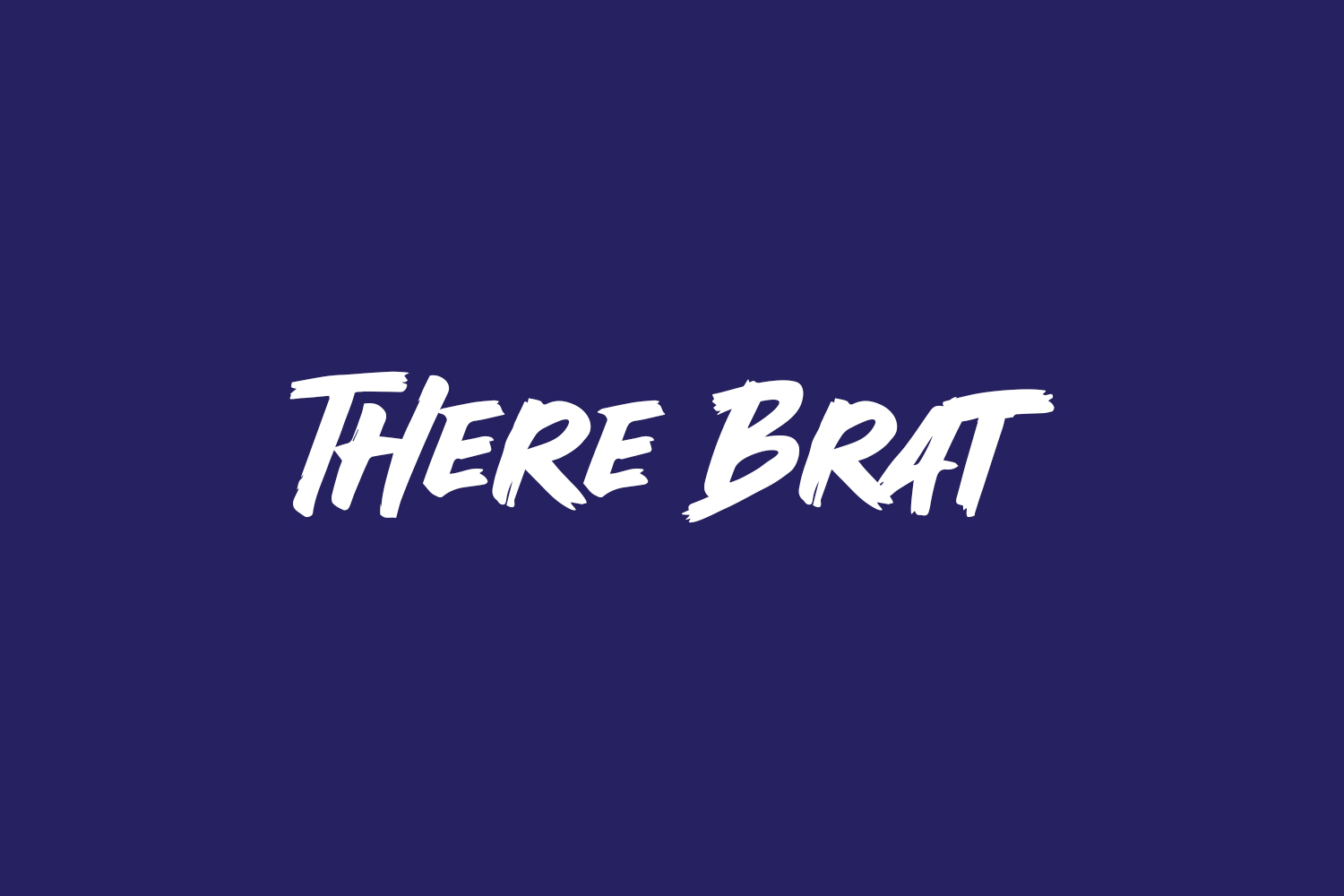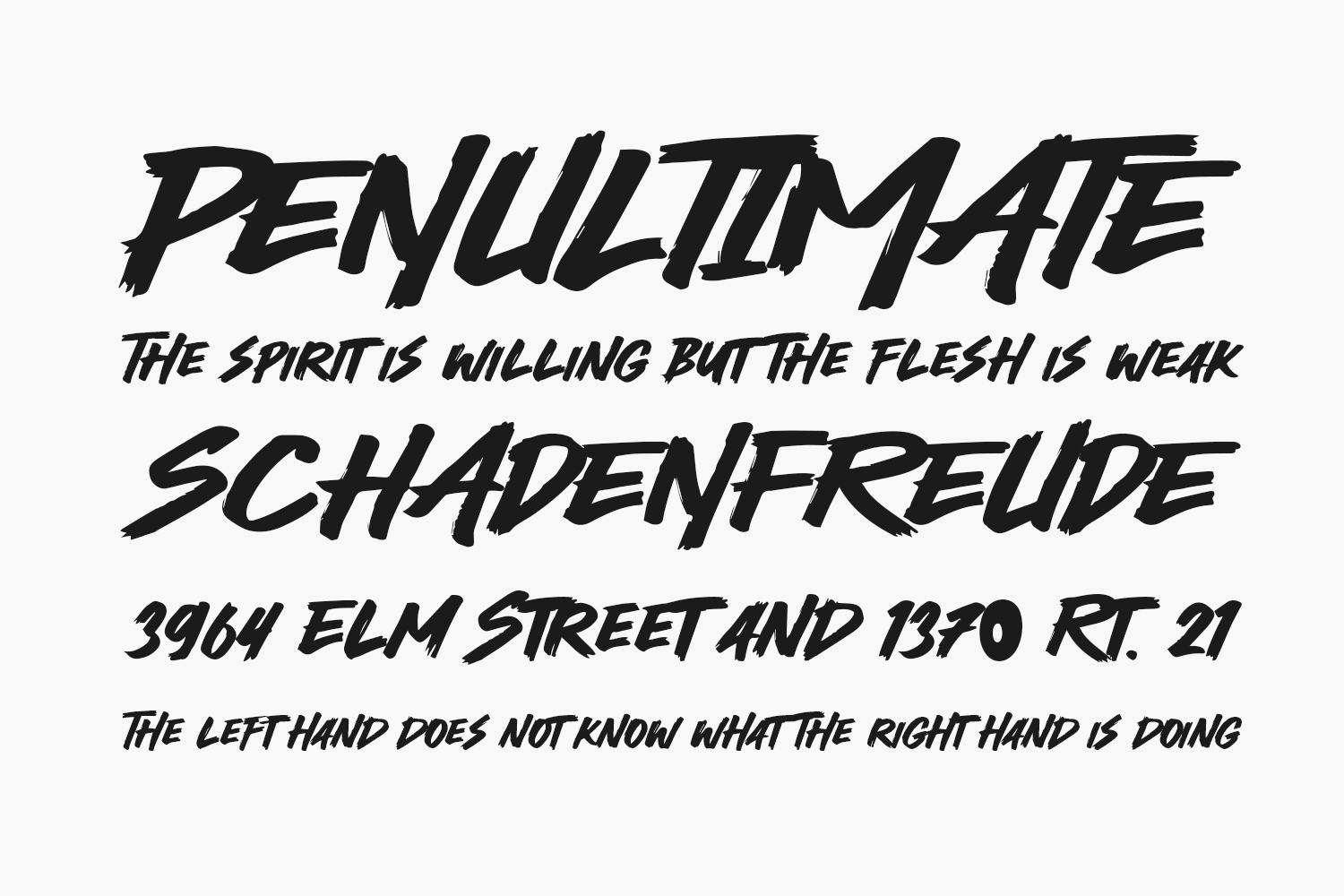
Introducing There Brat Free Font, a modern and stylish brush script font that exudes a sense of boldness and confidence. With its dynamic and fluid brushstrokes, this font perfectly captures the essence of modern brush lettering, making it a perfect choice for any design project that requires a touch of style and sophistication. Whether you’re creating a fashion campaign, a music album cover, or a modern brand identity, There Brat adds a unique and bold touch to any design.
The font’s unique style is inspired by the modern brush lettering trend, which is characterized by dynamic and fluid brushstrokes and a bold aesthetic. This makes There Brat ideal for creating designs such as posters, packaging, and branding. Its versatility allows you to use it for various designs like headlines, social media posts, and more.